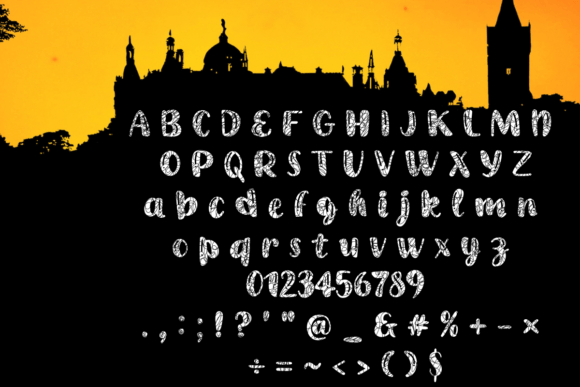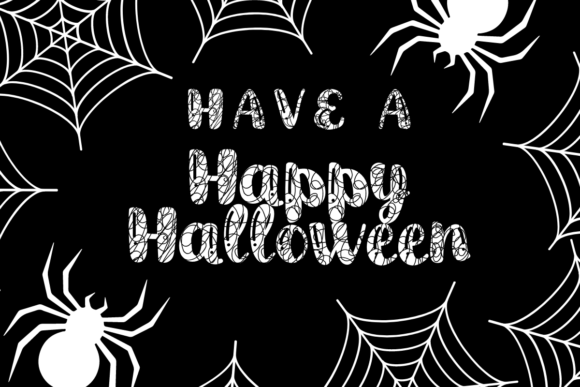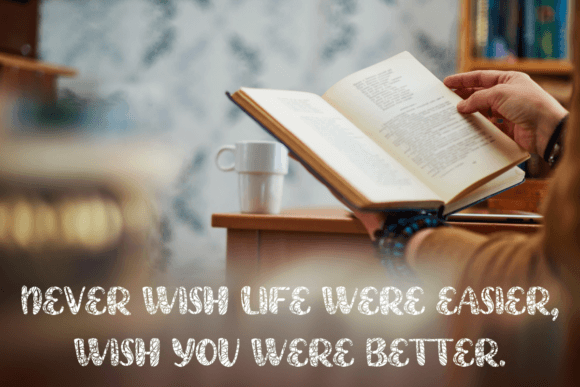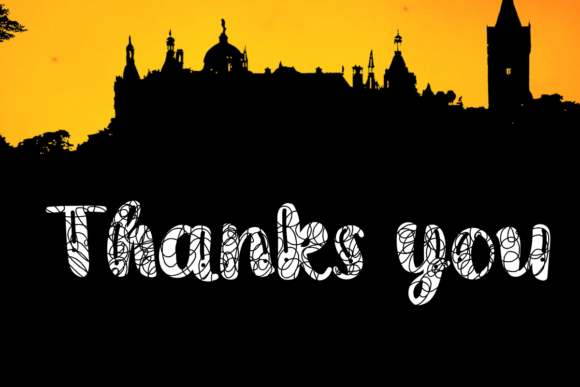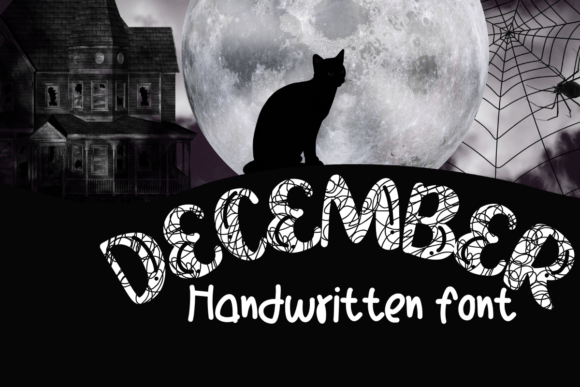
Introducing December Font: A Charming Display Font for Creative Projects
Are you looking for a font that adds a touch of elegance and charm to your creative projects? Look no further than December Font, a beautifully designed display font that’s perfect for a variety of uses. In this article, we’ll explore the features and benefits of December Font, and show you can use it to elevate your designs.
What is December Font?
December Font is a stunning display font that’s designed to add a touch of sophistication and whimsy to your projects. With its unique and elegant lettering style, this font is perfect for creating eye-catching designs that stand out from the crowd. Whether you’re a designer, crafter, or DIY enthusiast, December Font is a versatile and easy-to-use font that’s sure to become a favorite in your toolkit.
Uses for December Font
One of the best things about December Font is its versatility. This font can be used for a wide range of creative projects, including:
• Taking notes: Add a touch of elegance to your notes and journals with December Font.
• Writing a diary: Make your diary entries feel more special with this charming font.
• Creating greeting cards: Use December Font to create beautiful and personalized greeting cards for any occasion.
• Designing banners: Add a touch of sophistication to your banners and signs with this stunning font.
• Creating social media posts: Make your social media posts stand out with December Font’s unique and eye-catching style.
• Designing mugs, cards, shirts, and more: December Font can be used on a wide range of products, from mugs and cards to shirts and stationery.
Benefits of Using December Font
So why choose December Font for your creative projects? Here are just a few benefits of using this amazing font:
• Elegant and charming: December Font adds a touch of sophistication and whimsy to any project.
• Versatile: This font can be used for a wide range of creative projects, from notes and journals to banners and social media posts.
• Unique: This font’s unique lettering style ensures that your designs will stand out from the crowd.
Tips for Using December Font
To get the most out of December Font, here are a few tips to keep in mind:
• Experiment with different sizes and colors: December Font looks great in a variety of sizes and colors, so don’t be afraid to experiment and find the perfect combination for your project.
• Pair with other fonts: December Font pairs well with a range of other fonts, so try combining it with other fonts to create a unique and eye-catching design.
• Use it sparingly: While December Font is beautiful and elegant, it can be overwhelming if used too much. Use it sparingly to add a touch of sophistication to your designs.